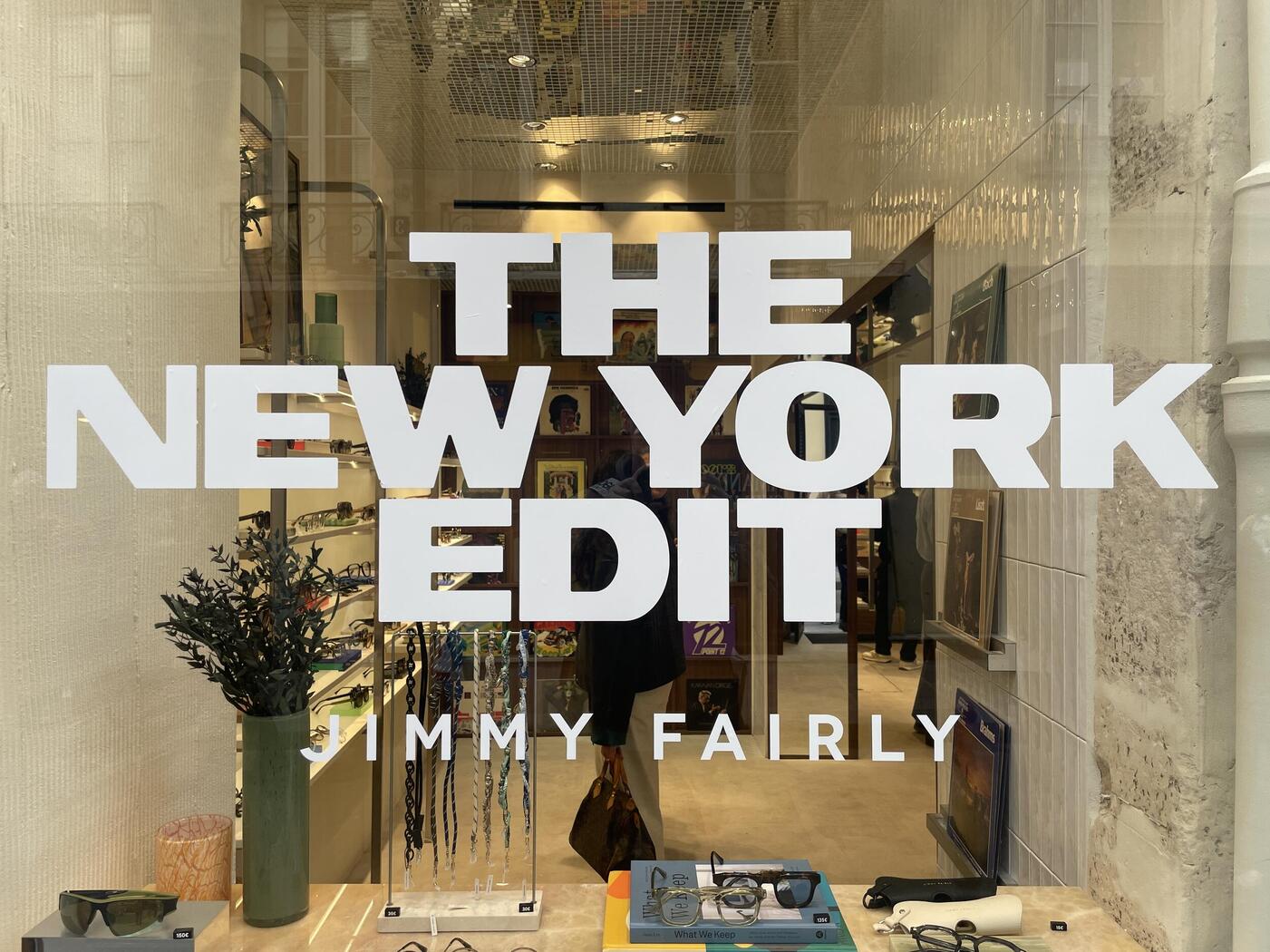
Jimmy Fairly's New York Edit campaign font
Saw this in Paris last week and wonder what font THE NEW YORK EDIT is.
Not sure how well it shows, but all corners are slightly rounded.
Interested in knowing what it is because I consider trying it for an identity I'm working on.